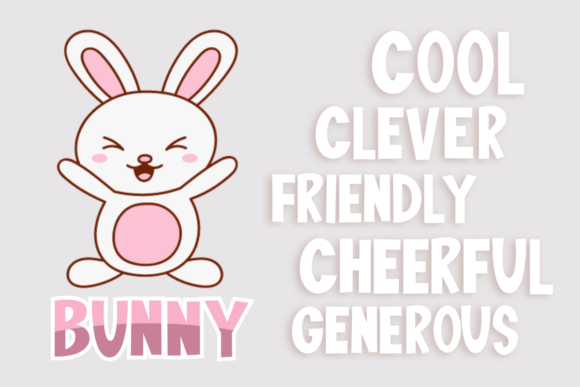
Introduction to Bear and Bunny Font
Remember that moment when you’re brainstorming ideas for a children’s book, and you stumble upon the perfect character design? The smile on a child’s face when they see their favorite cartoon character come to life is pure magic. As designers, we’re constantly on the lookout for the right tools to bring our creative vision to life. One such treasure trove of design resources is the Bear and Bunny Font, a delightful display font that’s sure to captivate your audience.
This charming font is a game-changer for designers working on children-themed projects. With its whimsical, cartoon-like aesthetic, Bear and Bunny Font is the perfect complement to bright colors and playful illustrations. Whether you’re creating a children’s book, designing a nursery, or developing a mobile app, this high-quality font is sure to elevate your design to the next level.
Key Features of Bear and Bunny Font
- High-quality vector design with transparent background, ideal for creative projects.
- Perfect for designers and artists working on children’s books, greeting cards, or any other design resource.
- Features a unique and playful design, combining the charm of a bear and a bunny.
- Size: The font includes multiple sizes and styles, making it versatile for various design applications.
Honest Review: Bear and Bunny Font
I recently stumbled upon the Bear and Bunny Font and I have to say, I’m quite impressed. As a designer, I’m always on the lookout for high-quality design resources to enhance my creative projects. This font definitely fits the bill.
What works well about this font is its playful and whimsical nature. The design is perfect for projects that require a touch of fun and personality, such as children’s books, party invitations, or even social media graphics. The transparent background also makes it easy to customize and integrate with other design elements.
- ✨ Playful and whimsical nature that adds a touch of fun to any design
However, there are some limitations to consider. The font may not be suitable for more formal or professional projects, and some users may find the design to be a bit too cutesy.
Overall, I think the Bear and Bunny Font is a great addition to any designer’s toolkit. It’s a versatile and fun font that’s perfect for a wide range of creative projects. Just be sure to use it judiciously and consider the tone and audience of your project.
Bear and Bunny Font
To get the most out of the Bear and Bunny Font, use it in conjunction with other design elements to create a cohesive and visually appealing design. You can also experiment with different font sizes and styles to add a creative touch to your project.
The Bear and Bunny Font is perfect for use in creative projects such as illustrations, animations, and graphics. It’s also great for use in presentations and documents where a high-quality and unique font is needed. This font is a great design resource for anyone looking to add a creative touch to their project.
2. Woodland Creatures Font
Woodland Creatures Font is a high-quality design resource suitable for projects that require a mix of fantasy and realism. This font features a transparent background, making it easy to layer over images or textures. It’s perfect for designing posters, prints, or digital art for kids. Woodland Creatures Font compares to Bear and Bunny Font in its use of woodland creatures, but it has a more detailed and intricate design.
Yes, the Bear and Bunny Font is designed to be used with a transparent background, allowing you to create visually appealing designs with ease. This feature makes it an excellent choice for designers who want to add a touch of whimsy to their creative projects.